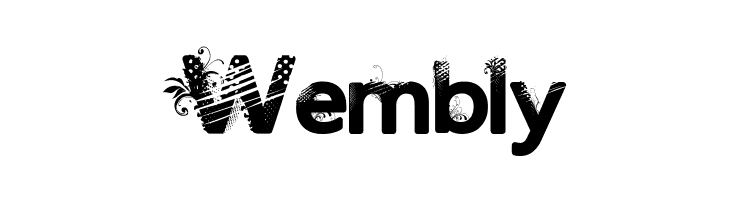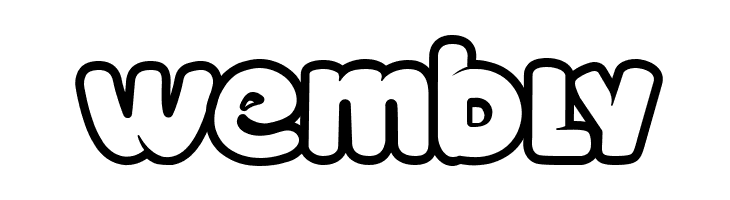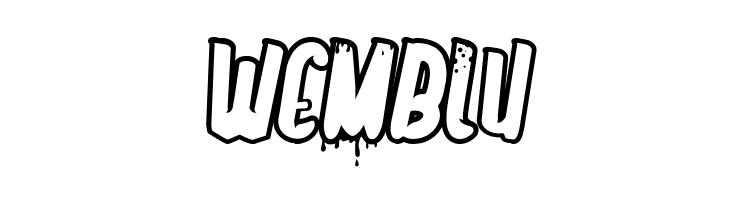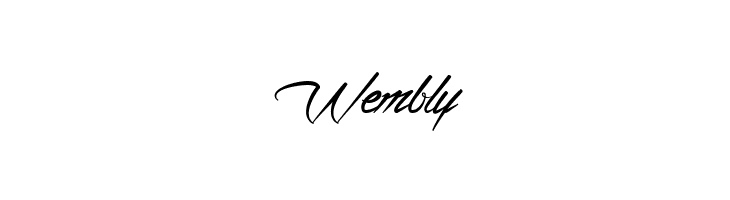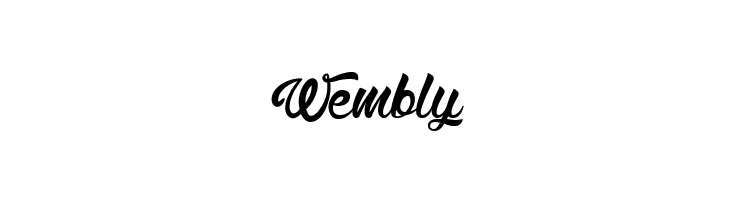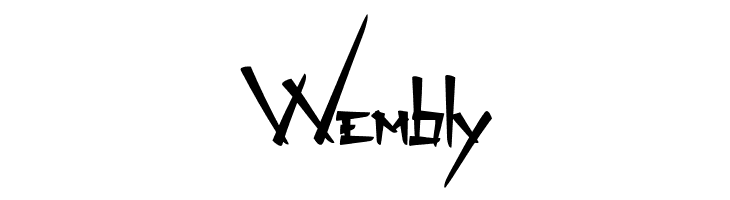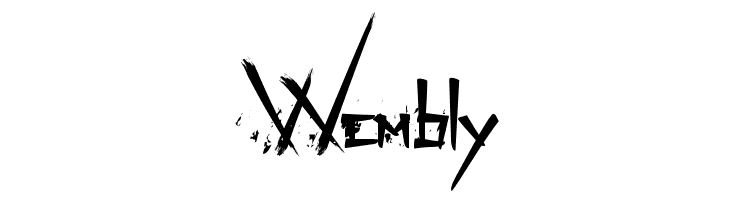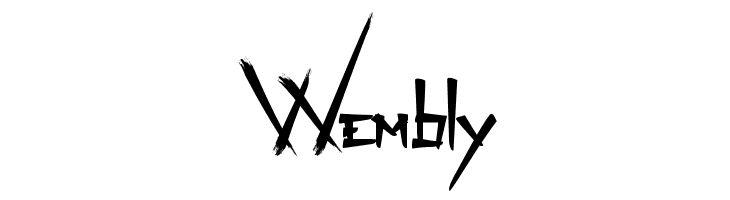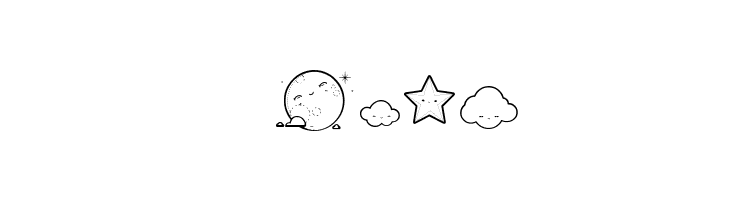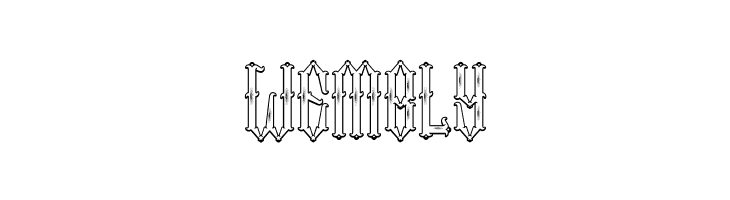
A playful icon set with weather and celestial themes.
Hand-drawn dingbat font with toy car-themed illustrations.
Cartoon character dingbat font with whimsical, illustrated glyphs.
A playful, bold font with rounded, bubble-like characters ideal for fun and whimsical designs.
A bold, decorative font with butterfly and floral embellishments.
An ornate, blackletter-inspired font with intricate detailing and high contrast.
A bold, intricate blackletter style font with high contrast and decorative flourishes.
A bold, gothic-style blackletter font with intricate details.
A playful, hand-drawn font with tall, narrow characters and a whimsical style.
A fluid, cursive script font with elegant, interconnected characters and a dynamic slant.
A dynamic and elegant script font with a fluid, handwritten style.
An elegant and flowing script font with ornate, cursive elements.
A dynamic and elegant script font with flowing curves and smooth connections.
A dynamic and elegant script font with flowing, cursive letterforms and ornate uppercase characters.
A bold, playful font with a cartoonish, graffiti-like style.
A bold, graffiti-inspired font with sharp angles and dynamic strokes.
A bold, graffiti-inspired font with angular, distressed letters.
A bold, graffiti-inspired font with sharp angles and dynamic strokes.
A playful, handwritten font with flowing, interconnected strokes.